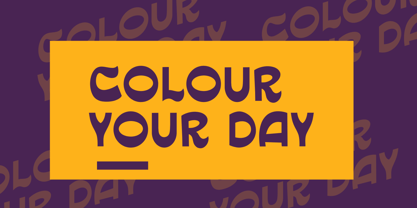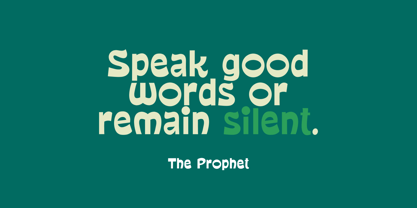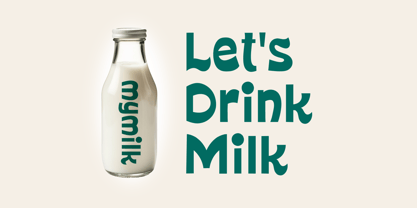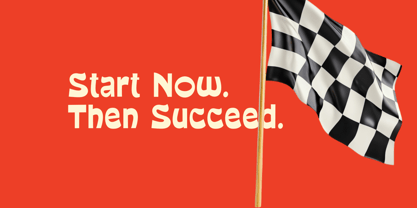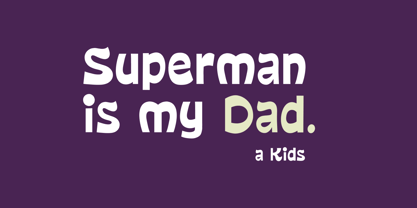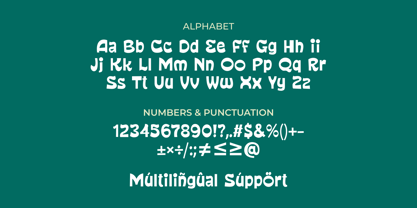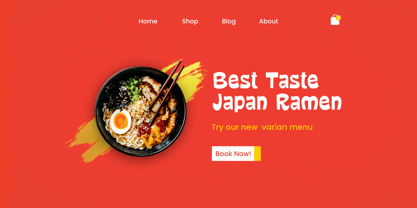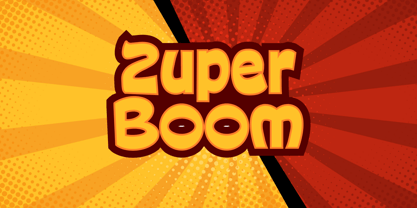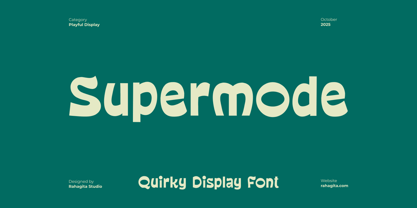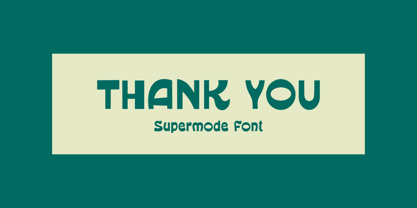
Supermode
by RahagitaType
The Supermode Font Family was designed by Setiadi Rahagita and published by RahagitaType. Supermode contains 1 styles.
Supermode is a quirky and playful display font designed to bring fun and creativity into your projects. With bold, rounded shapes and lively curves, this typeface adds a cheerful and friendly vibe to any design. Perfect for kids’ branding, packaging, posters, social media graphics, and fun quotes, Supermode captures attention while staying easy to read. Its unique letterforms and balanced proportions make it ideal for designers seeking a fresh, expressive, and joyful look. Multilingual support included.
Designers: Setiadi Rahagita
Publisher: RahagitaType
Foundry: RahagitaType
Design Owner: RahagitaType